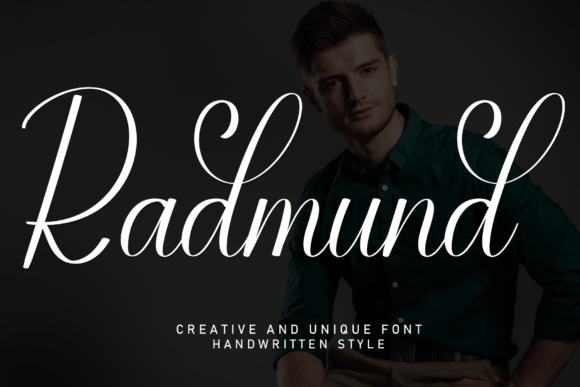
Welcome to the world of Radmund Font, a charming handwritten font designed to add a touch of sweetness and elegance to your creative projects. Step into a realm of enchanting letters, where each stroke dances with grace and each word carries a story.
Radmund Font is the perfect companion for those seeking a font that captures the essence of joy, friendship, and warmth. With its playful curves and effortless flow, this font will bring a smile to the faces of your readers and leave a lasting impression on their hearts.
Imagine the delight of your wedding guests as they receive invitations adorned with the exquisite Radmund Font. The harmonious blend of handwritten strokes and modern elegance will create an unforgettable experience, setting the tone for a day filled with love and laughter.
Radmund Font is not just limited to invitations; it's a versatile tool that can transform any design into a work of art. Whether you're creating cards for special occasions, heartfelt letters to loved ones, or any other project that calls for a touch of handwritten charm, Radmund Font will elevate your designs to new heights.
So, embark on a creative journey with Radmund Font, and let your imagination soar. Its friendly and approachable style will make it a favorite among your design arsenal, bringing a touch of magic to every project you undertake.